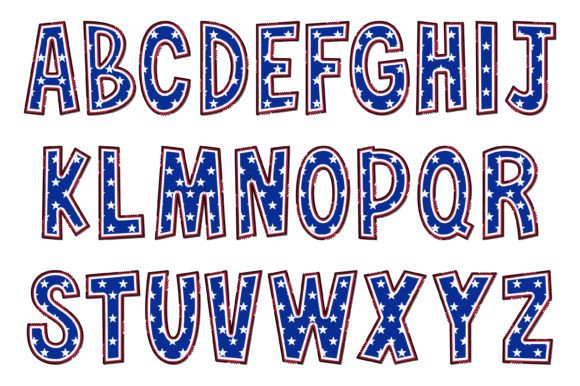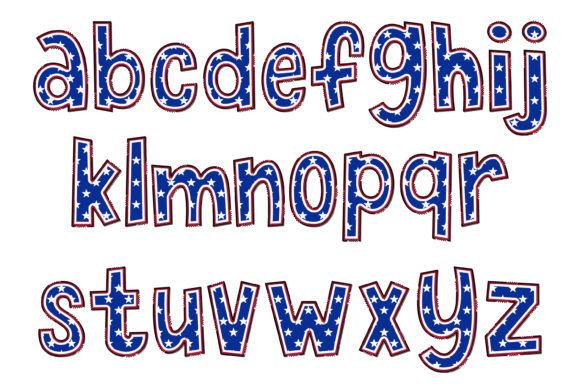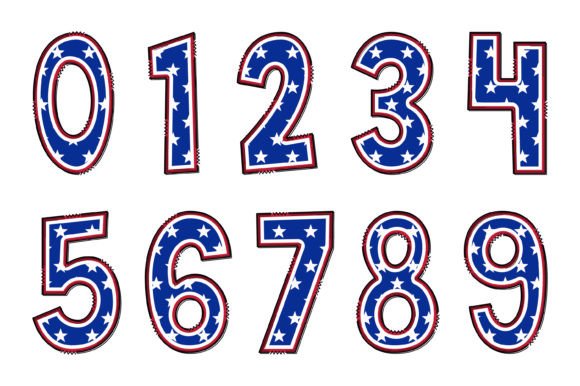
Introducing Freedom Font: The Ultimate Symbol of Liberty and Independence
Are you looking for a font that embodies the spirit of freedom and independence? Look no further than Freedom Font, a playful and vibrant color font that is sure to add a touch of fun and cheer to your projects. This bold and lively font is adorned with stars and stripes in shades of red, white, and blue, creating a festive and patriotic atmosphere that is perfect for Fourth of July festivities, celebratory events, or designs that exude American pride.
The Inspiration Behind Freedom Font
Freedom Font is more than just a font – it’s a symbol of the American spirit. The font’s design is inspired by the country’s rich history and the values of liberty and independence that it represents. The bold and lively letters are designed to evoke the feeling of celebration and joy, making it perfect for designs that require a touch of patriotism.
Key Features of Freedom Font
- Playful and Vibrant Design: Freedom Font features a playful and vibrant design that is sure to grab attention. The font’s bold and lively letters are adorned with stars and stripes, creating a festive atmosphere that is perfect for celebratory events.
- Colorful and Patriotic: The font features a range of colors, including red, white, and blue, which are symbolic of American pride. The colors are carefully chosen to evoke the feeling of patriotism and freedom.
Perfect for Celebratory Events and Designs
Freedom Font is perfect for designs that require a touch of patriotism and celebration. Some of the occasions and designs where Freedom Font can be used include:
- Fourth of July Festivities: The font’s patriotic design makes it perfect for Fourth of July festivities, including invitations, posters, and social media graphics.
- Celebratory Events: Freedom Font can be used for other celebratory events, such as birthday parties, graduations, and weddings.
- American Pride Designs: The font is perfect for designs that exude American pride, including logos, brochures, and website headers.
Tips for Using Freedom Font
Here are some tips for using Freedom Font in your designs:
- Use it Sparingly: While Freedom Font is playful and vibrant, it’s best to use it sparingly to avoid overwhelming the design. Use it for headings or titles to add a touch of patriotism.
- Pair it with Neutral Fonts: Pair Freedom Font with neutral fonts to create contrast and balance in your design.
- Experiment with Colors: While the font features a range of colors, you can experiment with different color combinations to create a unique look.
Freedom Font is a playful and vibrant color font that embodies the spirit of liberty and independence. Its bold and lively letters in shades of red, white, and blue are adorned with stars and stripes, creating a festive and patriotic atmosphere. Whether for Fourth of July festivities, celebratory events, or designs that exude American pride, Freedom font adds a touch of fun and cheer to your projects. With its versatile design and easy-to-use features, Freedom Font is perfect for designers and crafters looking to add a touch of patriotism to their designs.